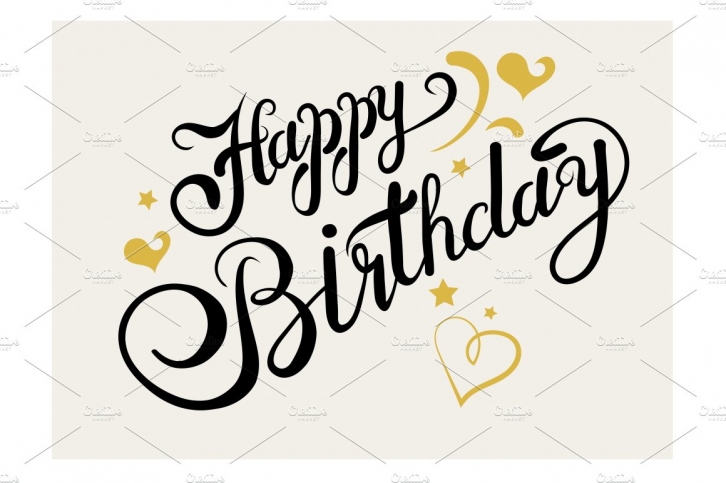
Happy Birthday. Lettering design. Logotype, template for greeting card, flyer, poster, sign, banner. Black and white, Vector illustration. Archive contains PNG (transparent background) JPG and EPS files